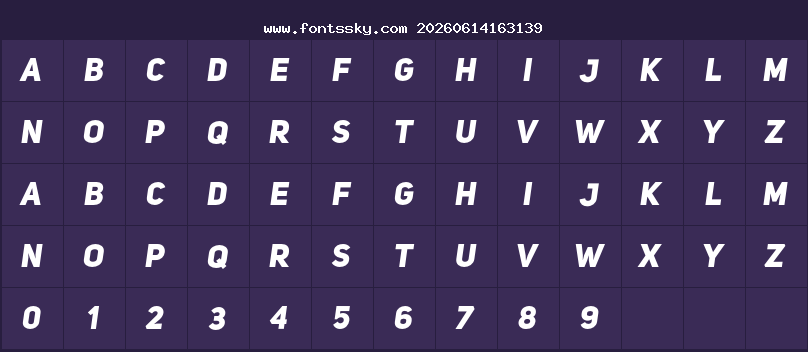
Uni Sans Heavy Italic CAPS Preview
• Font Name: Uni Sans Heavy Italic CAPS
• Font ID: 2009DesignedbySvetoslavSimovFontfabric,Inc: Uni Sans Heavy Italic CAPS: 2014
• Full Font Name: UniSansHeavyItalicCAPS
• Version: Version 001.029
• PostScript Name: UniSansHeavyItalicCAPS
• Character Count: 424
• Designer: Svetoslav Simov
• Manufacturer: © 2009 Designed by Svetoslav Simov © Fontfabric, Inc
About Uni Sans Heavy Italic CAPS.otf
Uni Sans Heavy Italic CAPS.otf is a modern, elegant sans-serif font designed for ultimate readability and visual harmony. Perfect for branding, headlines, web design, and print materials.